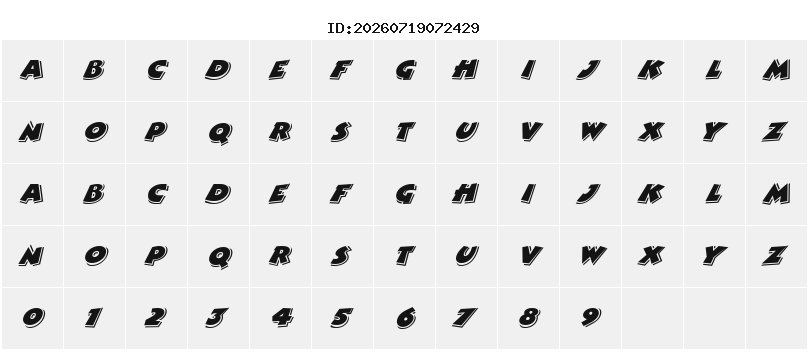
ComixHighlight Preview
• Font Name: ComixHighlight
• Full Font Name: ComixHighlight Italic
• PostScript Name: ComixHighlightItalic
About ComixHighlight.ttf
ComixHighlight.ttf is a modern, elegant sans-serif font designed for ultimate readability and visual harmony. Perfect for branding, headlines, web design, and print materials.